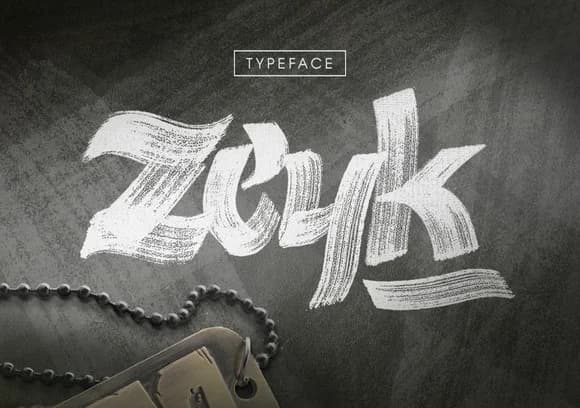
Bruship is a brushed script typeface by Juan Pablo Bello Fernández that captures the spontaneity and energy of contemporary hand-drawn lettering. The font features dynamic, fluid letterforms paired with a natural flow that delivers genuine handcrafted appeal. Every character radiates authenticity without sacrificing readability, making Bruship a tool for designers who want their work to feel personal and tactile rather than sterile or mass-produced. This script excels across diverse creative disciplines. Wedding invitation suites benefit from its romantic gesture, while boutique skincare packaging gains sophistication through its organic warmth. For Etsy sellers and independent makers, Bruship works equally well on product labels as it does on editorial headlines and poster art. The typeface performs beautifully across apparel branding projects, custom vinyl decal work, and social media quote graphics, anywhere handmade character matters more than geometric precision. Whether you're establishing a brand identity or creating merchandise with personality, this script delivers visual impact through its inherent humanity. The typeface maintains its character and legibility across both digital and print formats, adapting gracefully to different sizes without losing its distinctive personality. Find Bruship Font on Creative Fabrica and incorporate this hand-lettered script into your design practice, whether for one-time projects or ongoing brand work.
- Elegant, Flowing, Bruship
Bruship Font is a script font that shines as a display or heading face. Pair it with a clean sans-serif or serif font for body text — the contrast creates a clear hierarchy while the two styles stay balanced and easy to read.